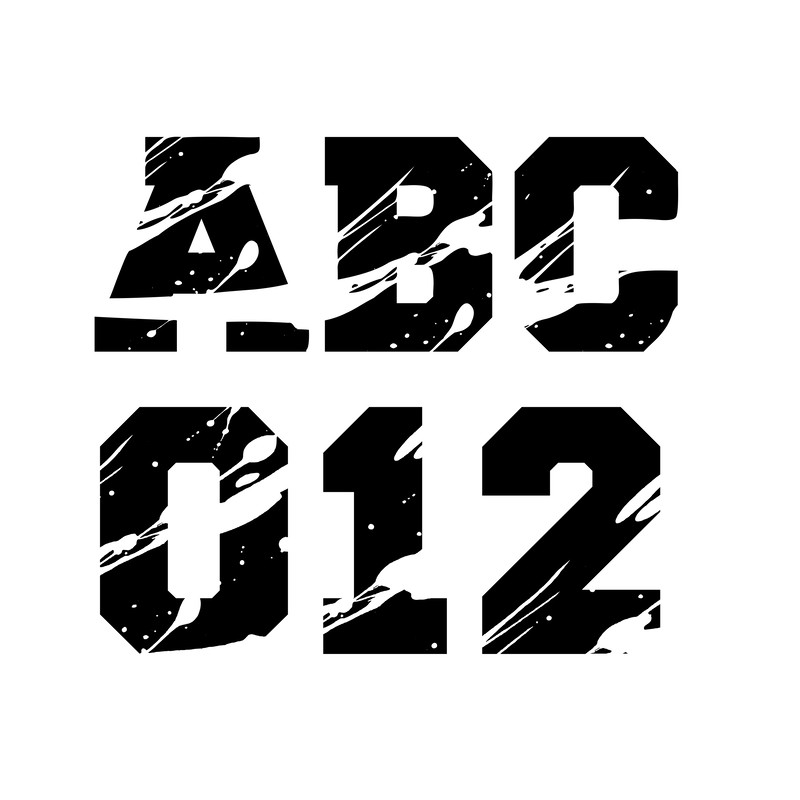
Sport distressed font SVG | OTF, College distressed font svg, Varsity distressed font svg, Distressed Varsity numbers
Sport distressed font SVG | OTF, College distressed font svg, Varsity distressed font svg, Distressed Varsity numbers letters Cricut